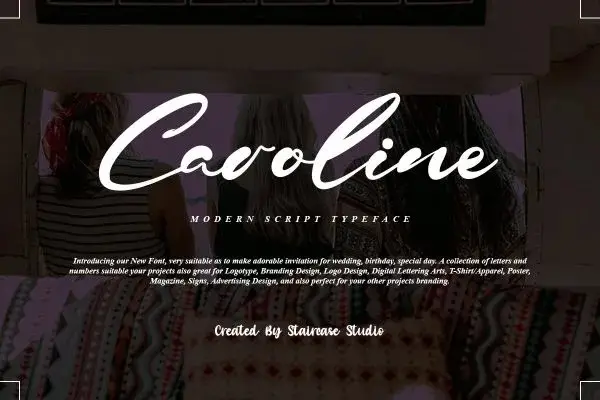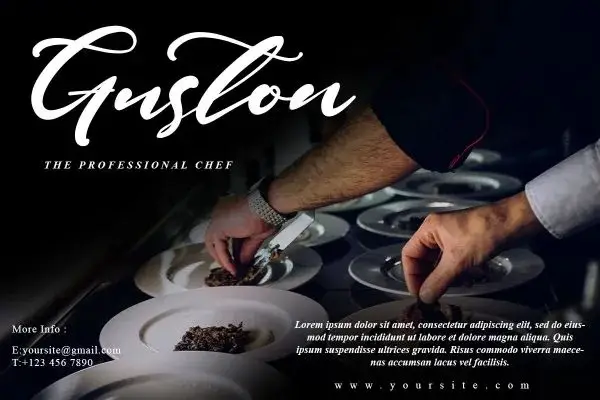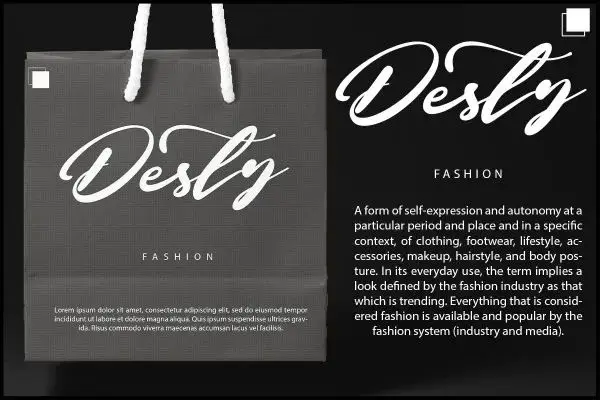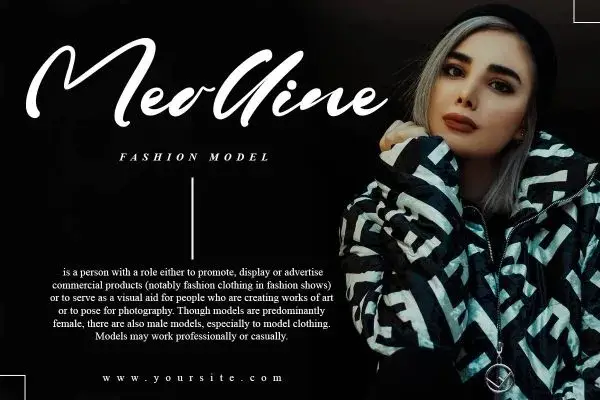
Caroline Script Font
The Caroline Script Font is a beautifully crafted typeface that exudes elegance and sophistication. With its flowing curves and stylish letterforms, this font is perfect for a variety of design projects.
Utilize the Caroline Script Font for branding, logos, invitations, and any project that requires a touch of elegance. Its unique style makes it ideal for both print and digital media.